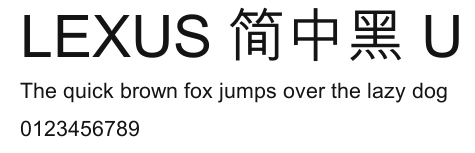
• Font Name: LEXUS 简中黑 U
• Font ID: Monotype HeiGB Medium
• Full Font Name: LEXUS 简中黑 U
• PostScript Name: LEXUS-HeiS-Medium-U
About LEXUS 简中黑 U.TTF
LEXUS 简中黑 U.TTF is a modern, elegant sans-serif font designed for ultimate readability and visual harmony. Perfect for branding, headlines, web design, and print materials.